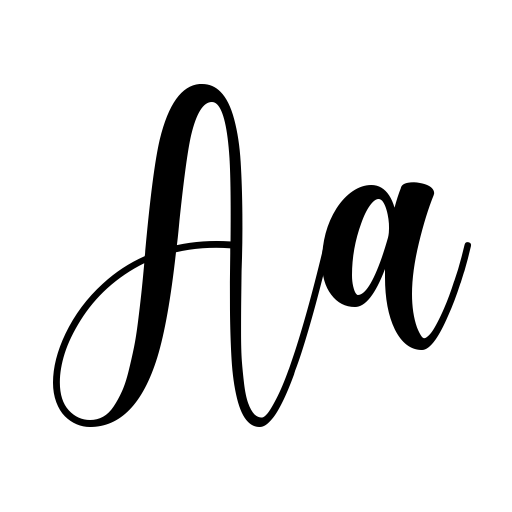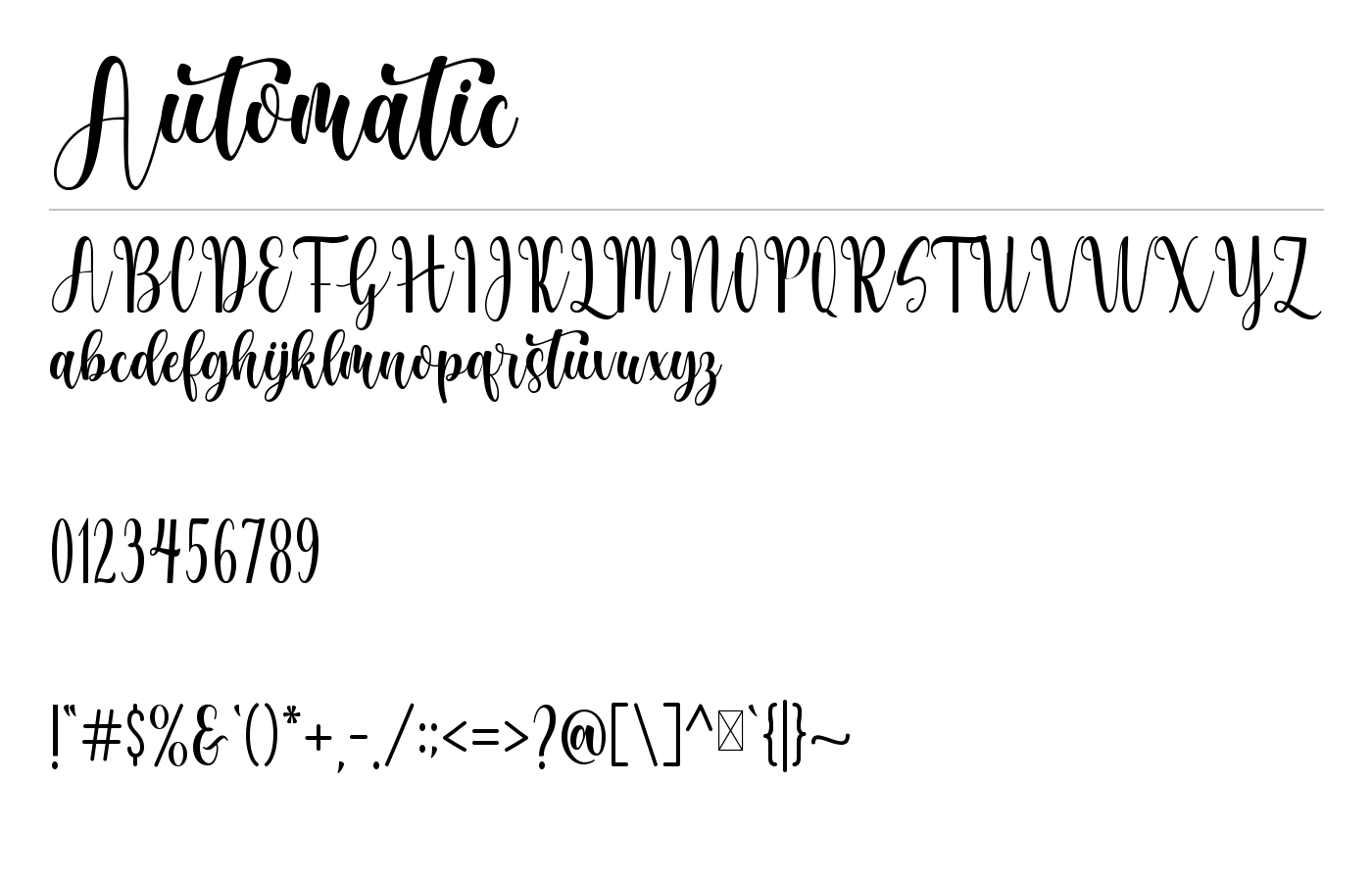
Automatic Font is a stylish script typeface that blends elegant cursive strokes with a playful, modern flair. Its medium weight, smooth curves, and distinctive uppercase letters make it perfect for branding, invitations, and creative designs that want to convey sophistication with a friendly, approachable tone. This font works especially well in logos and headlines where a clear yet artistic script can create a memorable impression.
Automatic Font
About Automatic Font
| Font family | Automatic Font |
| Designer | Fina Fadlilah |
| Designer link | Fadlilah Studio |